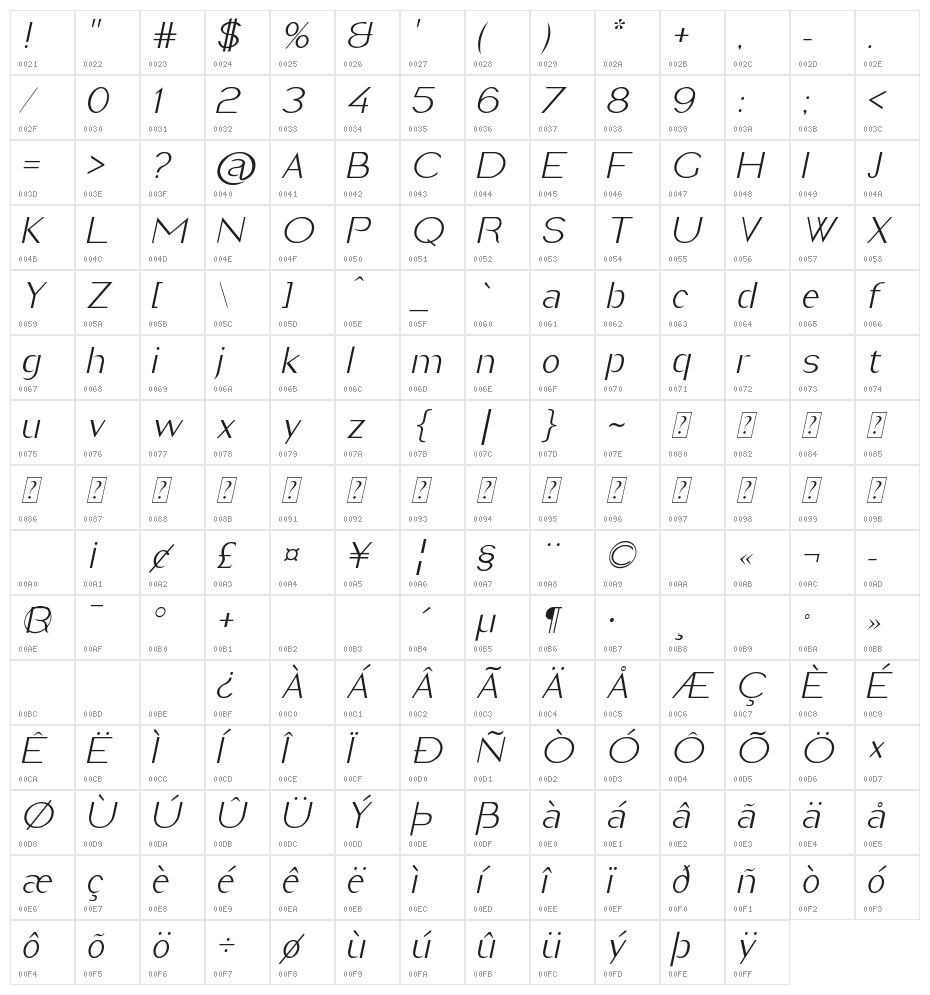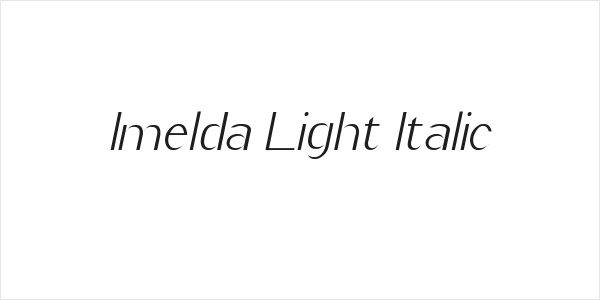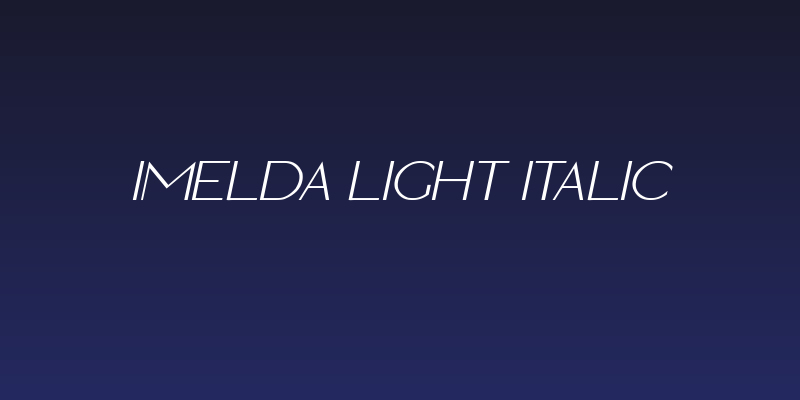
Imelda Light Italic Font
Imelda Light Italic Description
This font features a sleek and elegant design with a light and airy feel. The italic style adds a dynamic and sophisticated touch, making it ideal for modern and stylish applications. The characters are slightly slanted, giving a sense of movement and fluidity. The strokes are thin and consistent, contributing to a clean and minimalist appearance. The font maintains a balanced proportion between the height and width of the characters, ensuring readability and aesthetic appeal. It includes a full set of uppercase and lowercase letters, numbers, and a variety of special characters, making it versatile for various design needs.
| Proposed Projects | Ideal for fashion magazines, luxury branding, elegant invitations, and modern websites. |